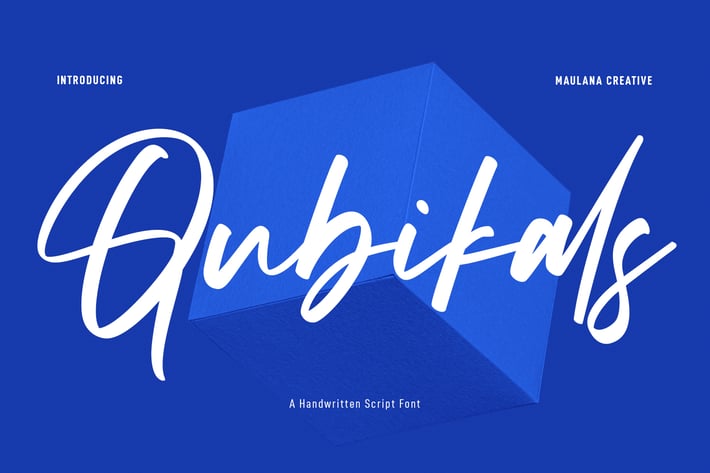
Qubikals Handwritten Script Font
Qubikals is a Casual slant Script font. With bold contrast stroke, fun character with a bit of ligatures. To give you an extra creative work. Qubikals font support multilingual more than 100+ language. This font is good for logo design, Social media, Movie Titles, Books Titles, a short text even a long text letter and good for your secondary text font with sans or serif. Make a stunning work with Qubikals font.